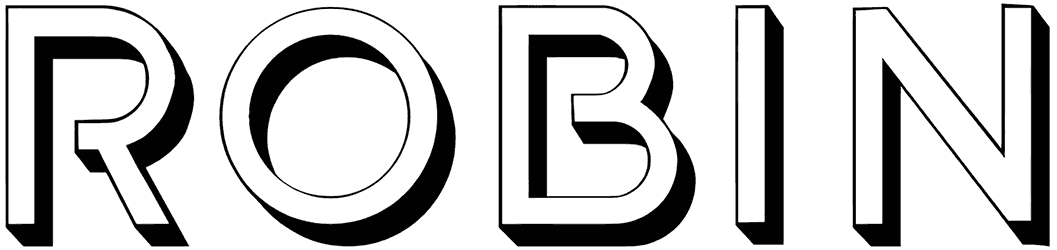
Robin Font
Surely, you know that attractiveness drops off in simplicity. Here, we are displaying a modern sans-serif font with a 3D effect as if it attempts to prove its smart and strong identification to all of us. Despite lacking…
Surely, you know that attractiveness drops off in simplicity. Here, we are displaying a modern sans-serif font with a 3D effect as if it attempts to prove its smart and strong identification to all of us.
Despite lacking lowercase, Robin with shaded characters comes closer to getting you the potential to involve this outline font in your future arrangement and heighten your apps, games, magazine covers, or more. Our library hosts a number of artistic shadow fonts. See and inspire!